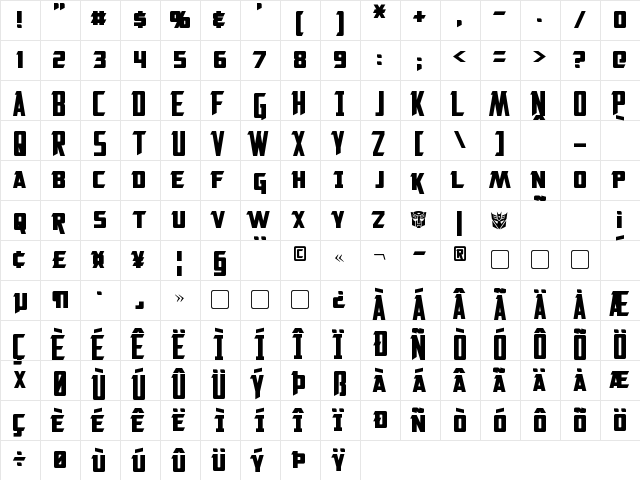
Solitarium Regular
| Designer | Neale Davidson |
Design Context for Solitarium Typeface
Solitarium is a composed and adaptable typeface that performs quietly and consistently across a wide range of design contexts.